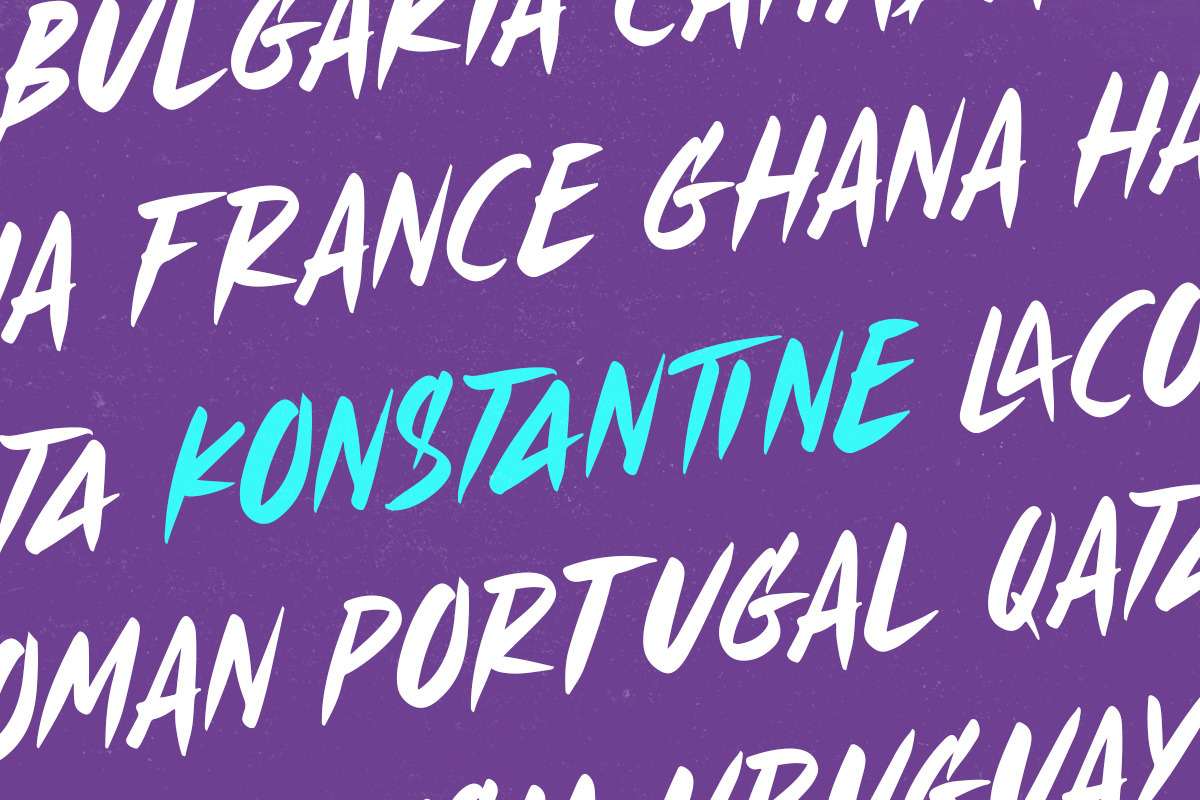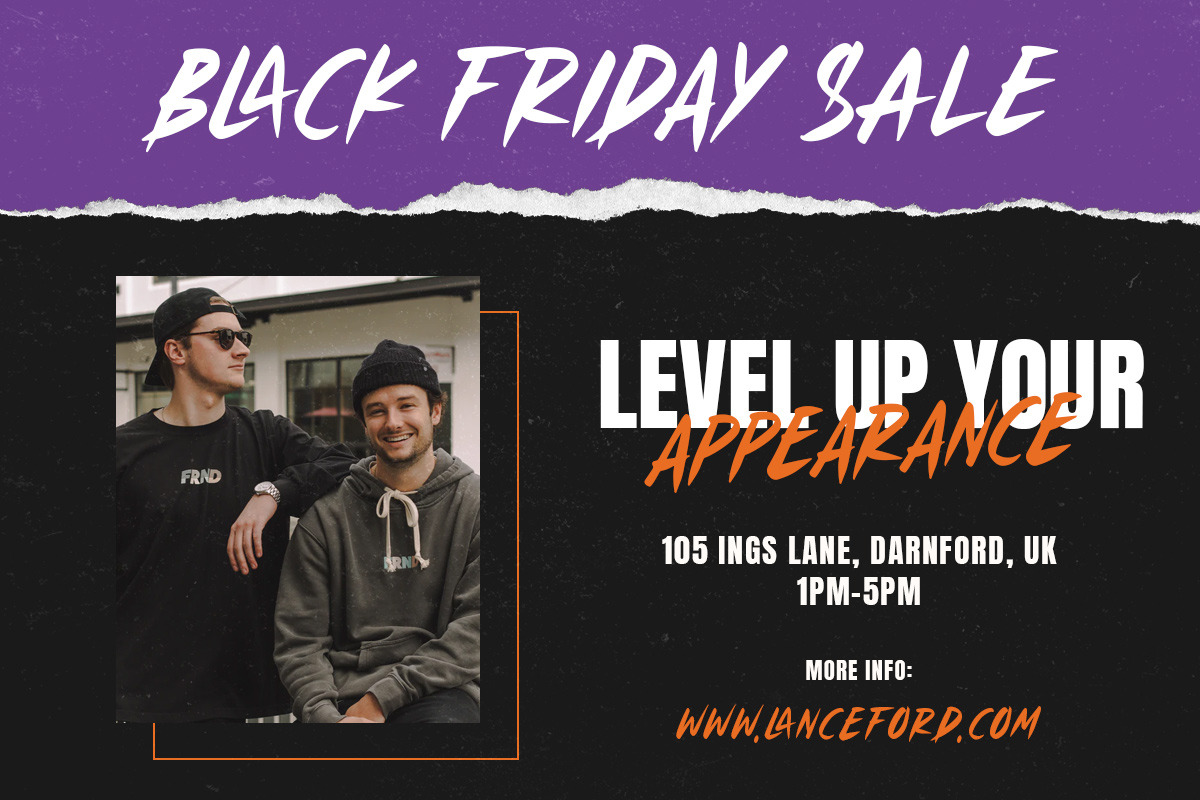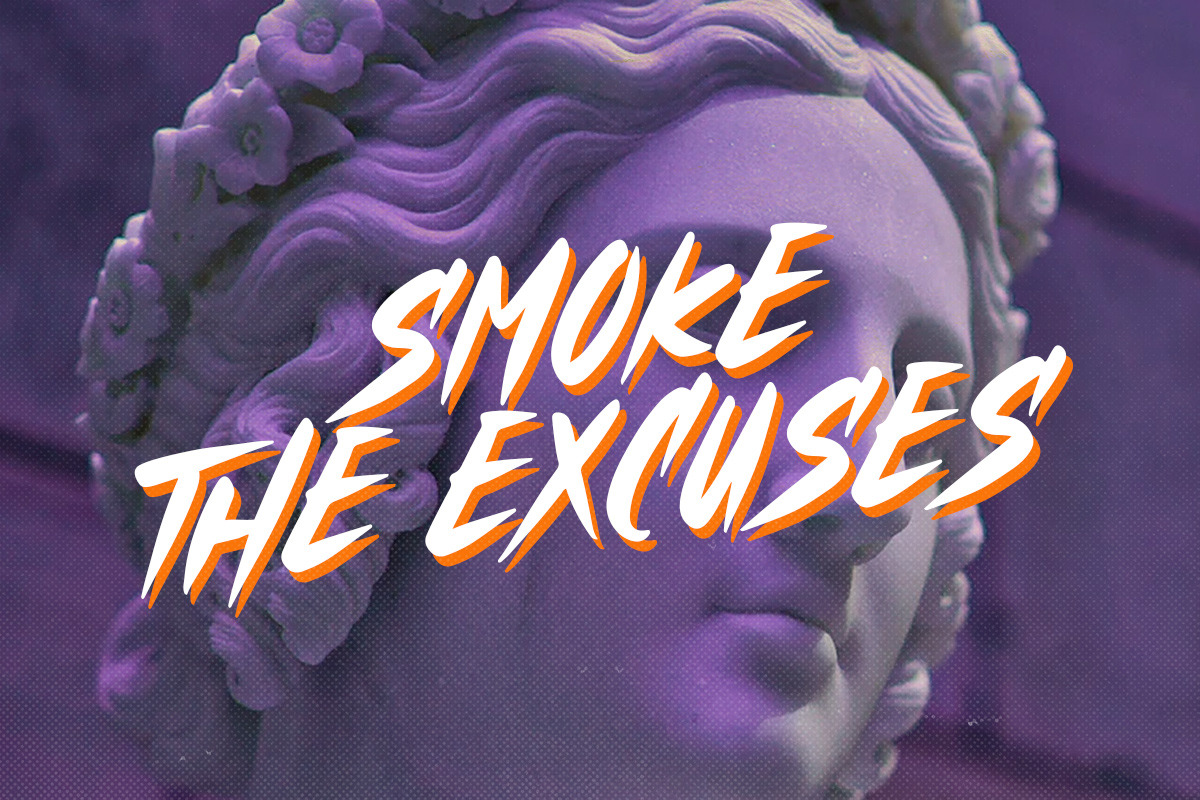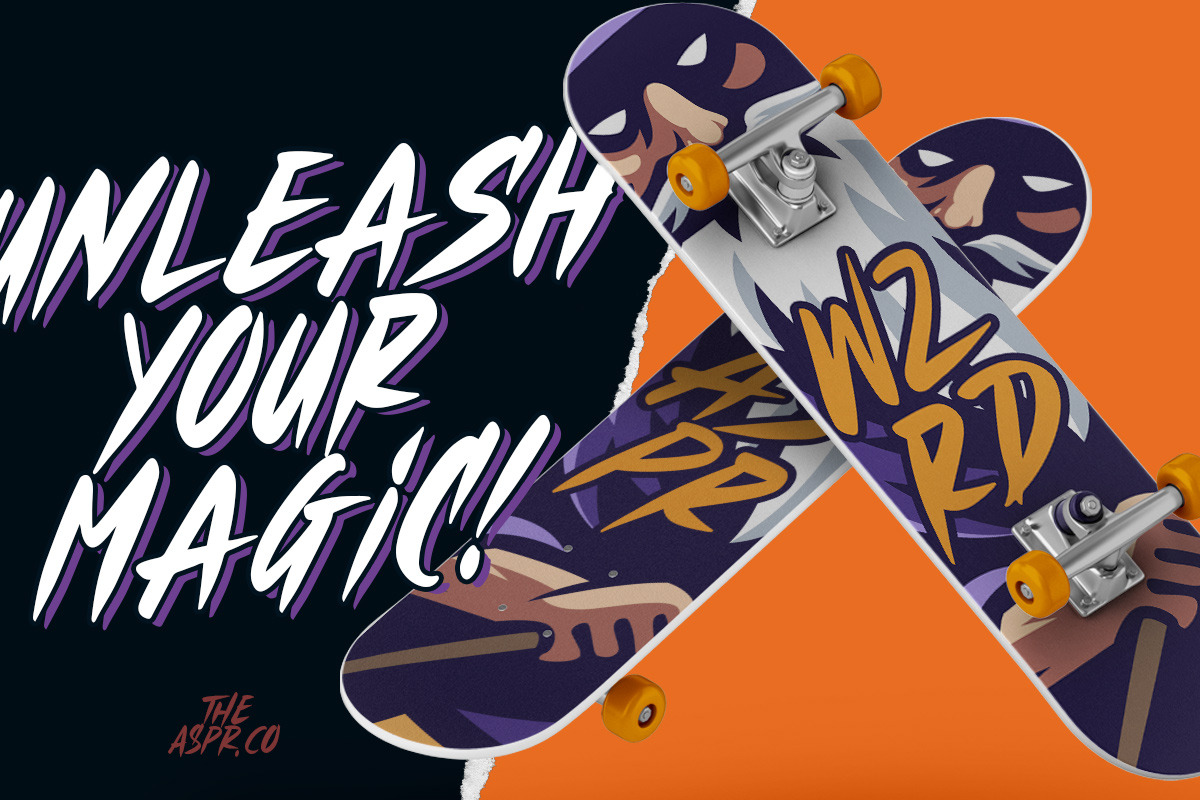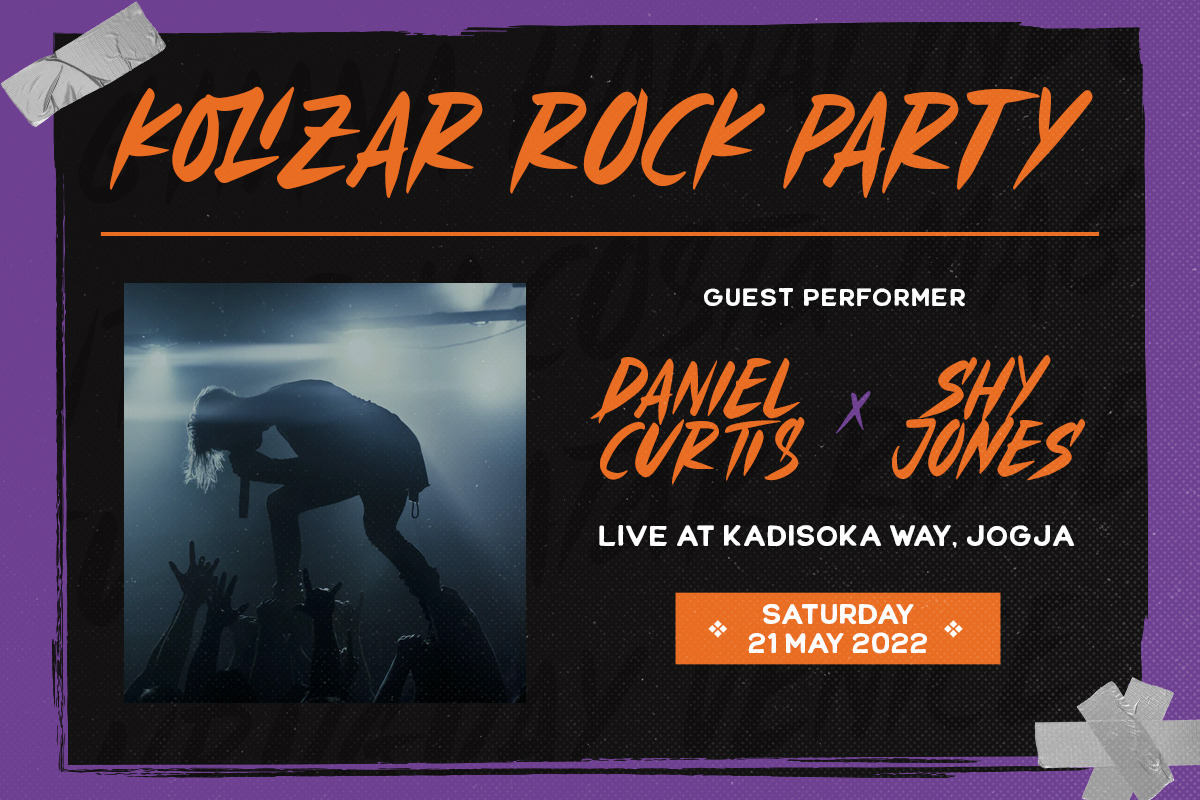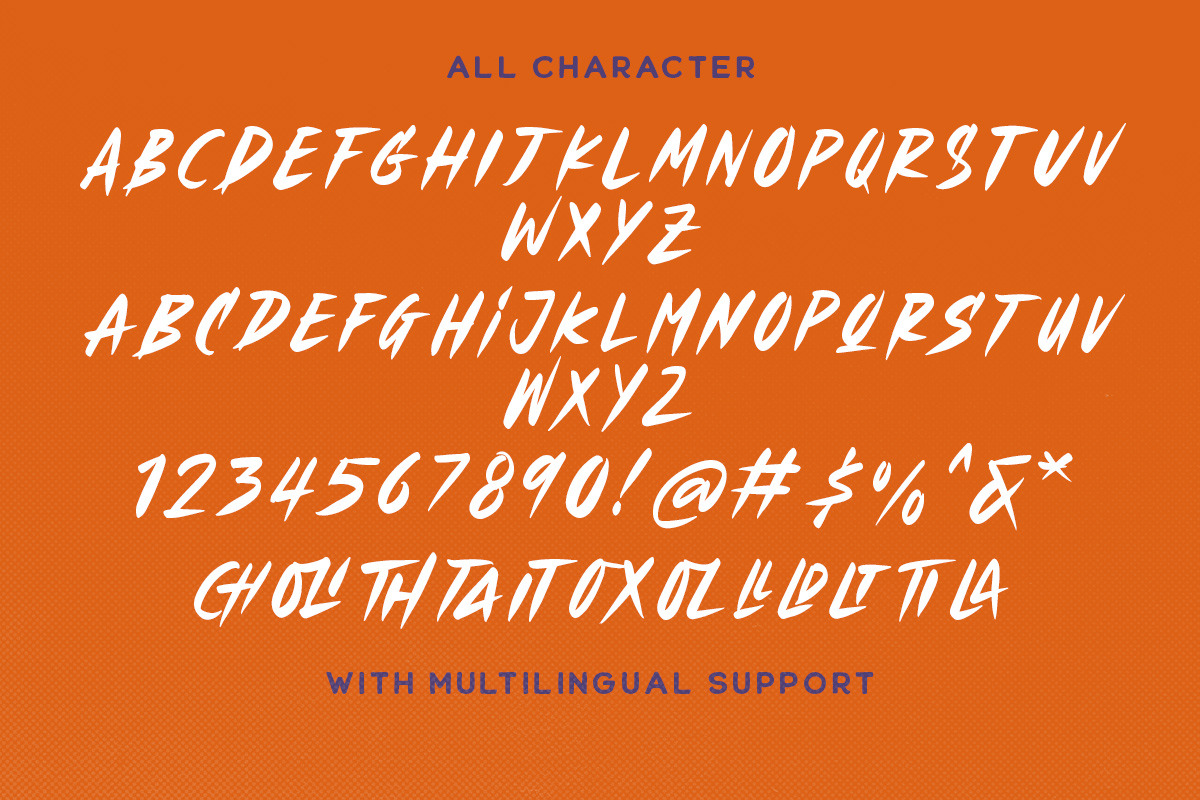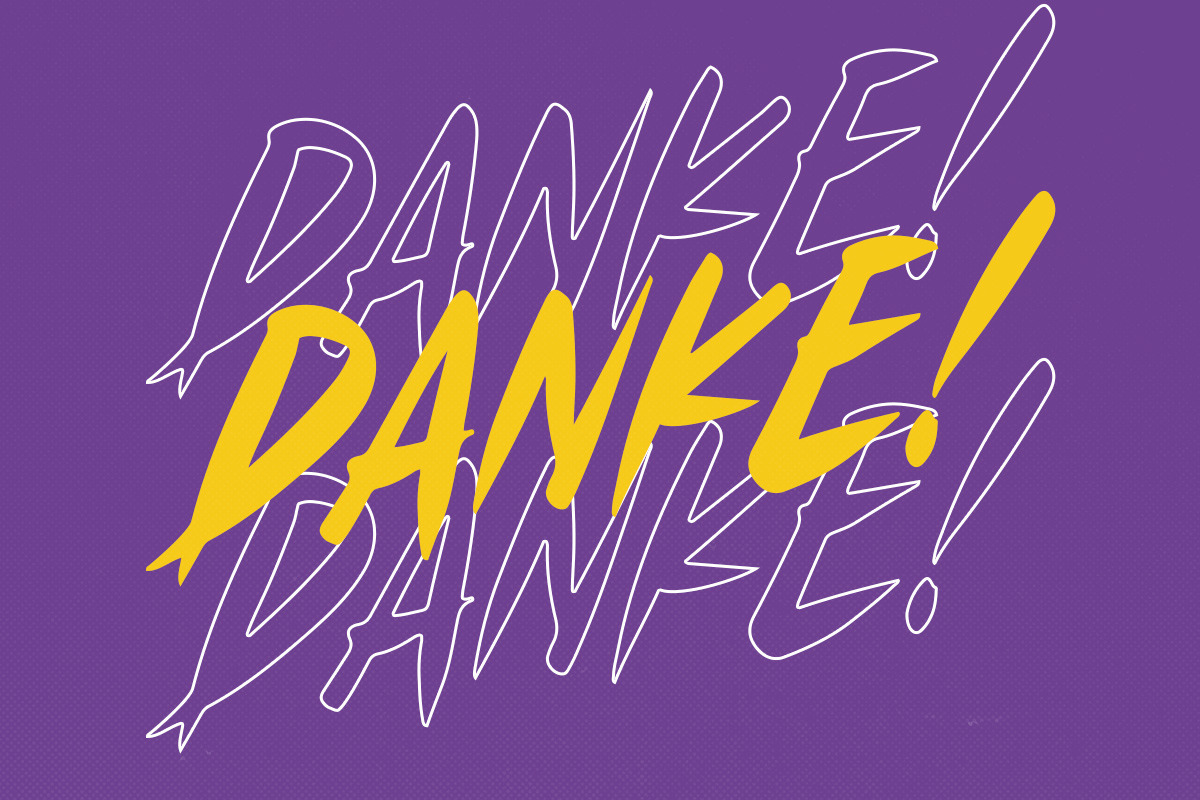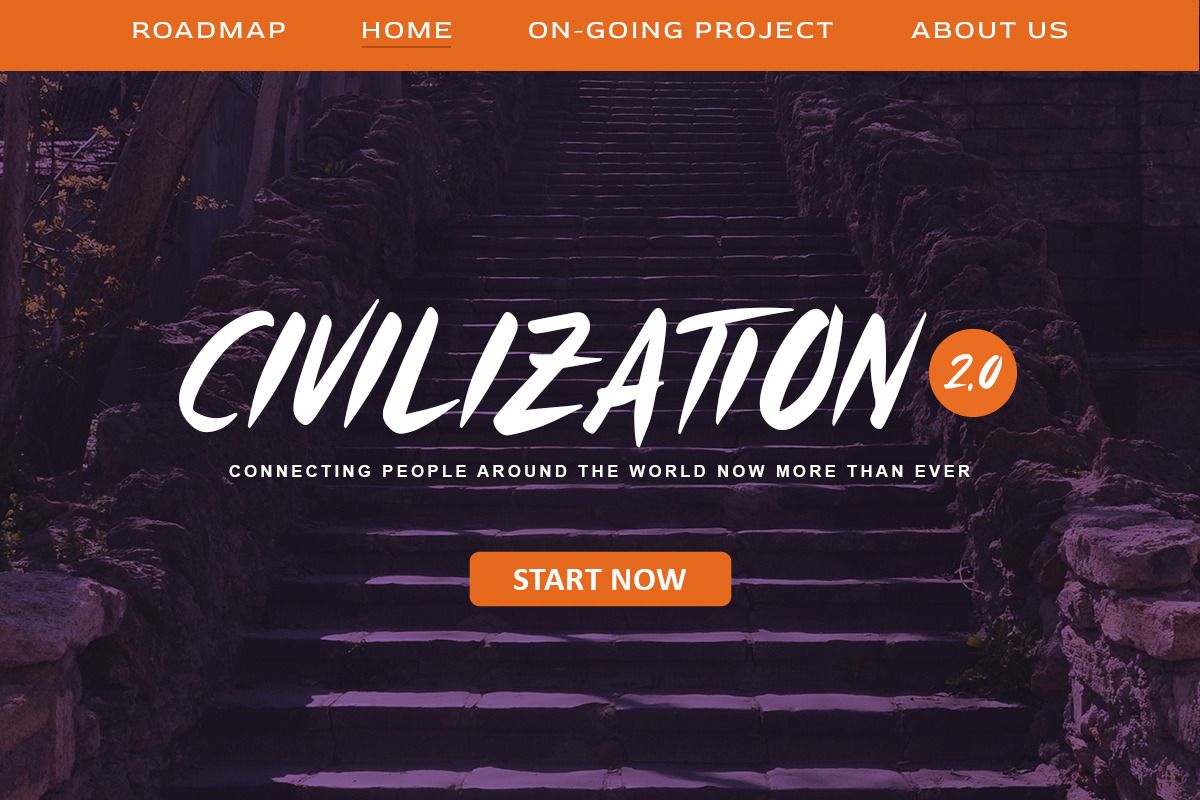
Strange Piece
Strange Piece is a modern and playful typeface which is purposely made for headline, display or logotype. This type of font perfectly made to be applied especially in logo, and the other various formal forms such as invitations, labels, logos, magazines, books, greeting / wedding cards, packaging, fashion, make up, stationery, novels, labels or any type of advertising purpose.
- alternates & ligatures